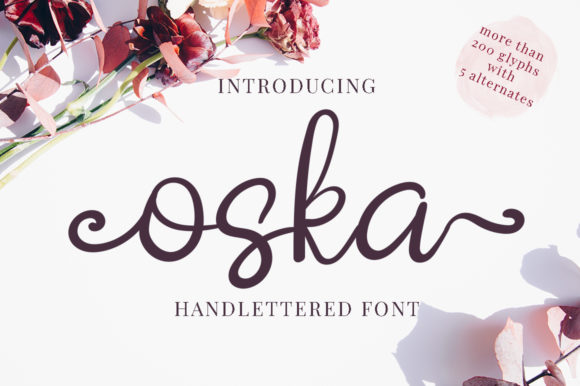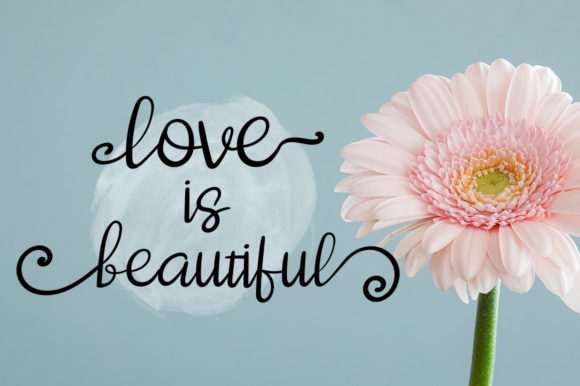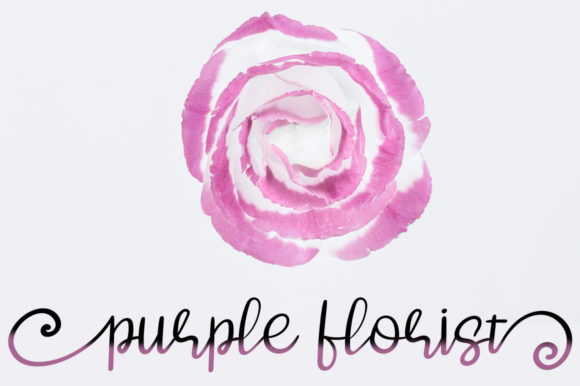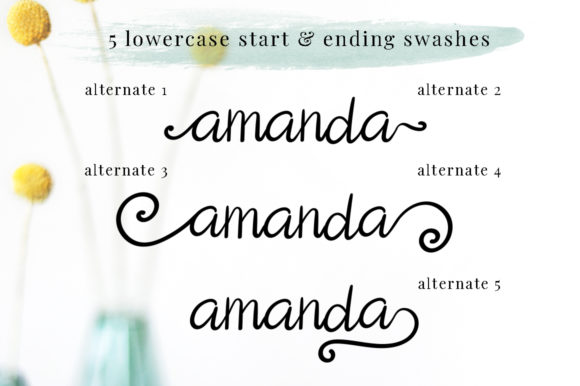
About Oska Font
Introducing “The Oska,” a handmade calligraphy font designed to bring an elegant and feminine style to your projects. This font is not just a typeface; it’s a design asset crafted with beautiful alternates, adding a luxurious touch to your creative endeavors.
“The Oska” stands out with its calligraphic beauty and graceful alternates, creating an elegant and feminine aesthetic. Whether you’re working on branding, invitations, letterheads, or any design that demands a luxurious look, this font delivers with its distinctive and refined style.
The beautiful alternates of “The Oska” provide versatility and sophistication to the font, allowing it to seamlessly adapt to different design contexts. Branding materials benefit from the font’s elegant calligraphy, creating a memorable and stylish visual identity. Invitations and letterheads crafted with “The Oska” carry a luxurious and feminine vibe, setting the tone for special occasions.
Whether you’re designing for print or digital, “The Oska” adds a touch of refinement to your projects. Its handmade calligraphy and beautiful alternates make it a perfect choice for creating a distinctive and upscale look in a variety of creative applications.
In summary, “The Oska” is more than just a font; it’s a design companion that brings a handmade calligraphy style with beautiful alternates to your projects. Embrace its elegance and femininity for branding, invitations, letterheads, and more, and let “The Oska” elevate your designs with a luxurious and refined touch.